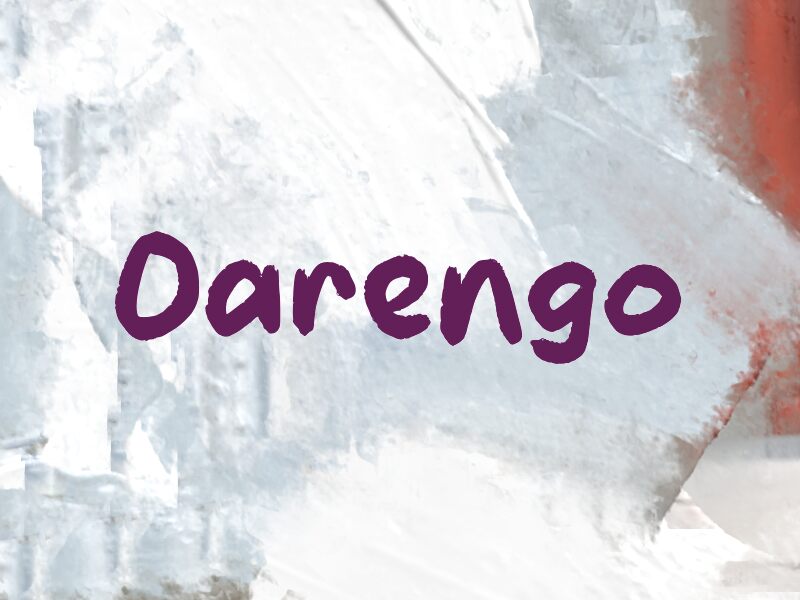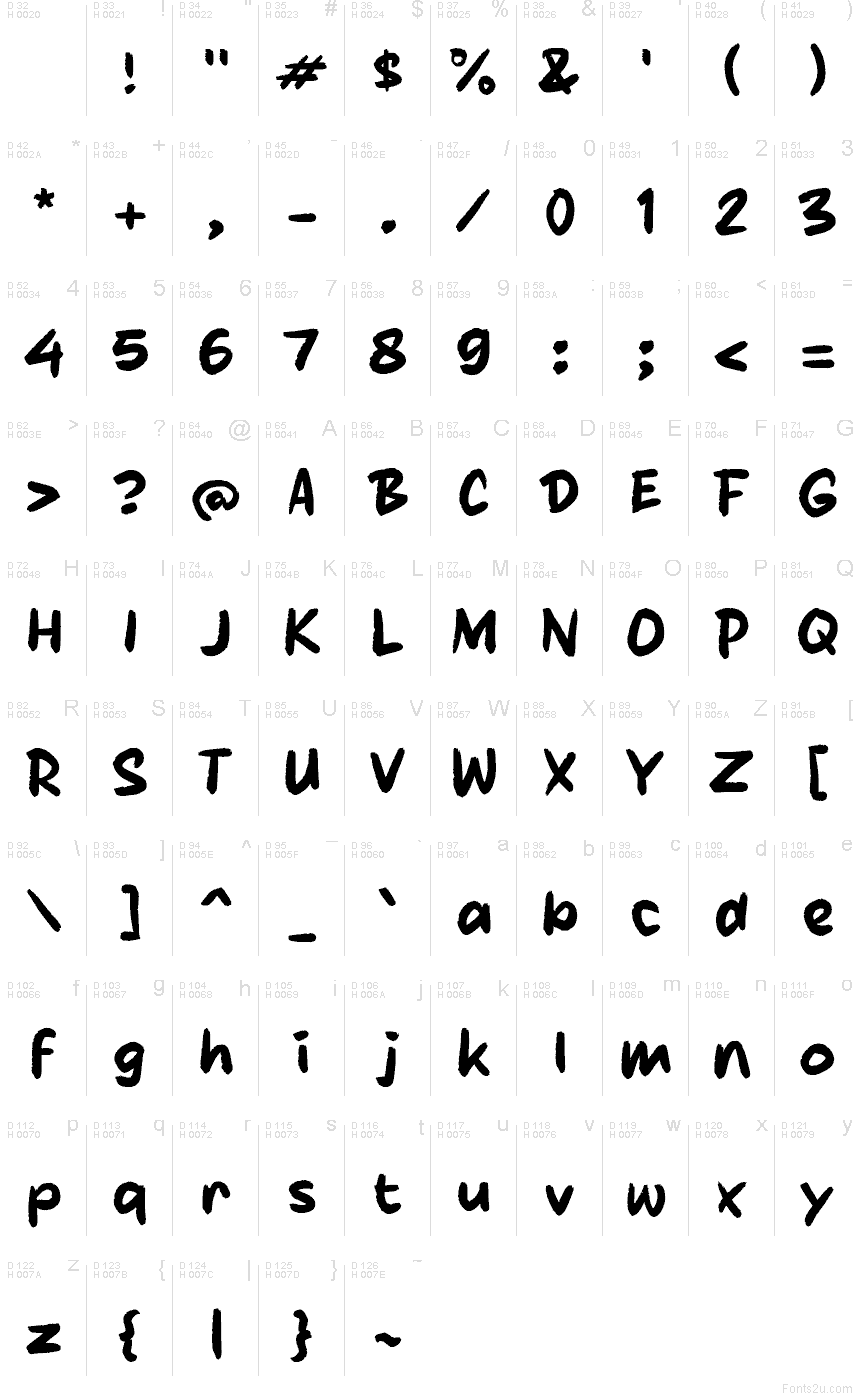
Oarengo
Oarengo font by wep is a free brush font that looks like it’s been painted in thick, inky strokes straight onto the screen. The letters are bold, rounded, and a little irregular, giving them a friendly, human wobble that still reads clearly at a glance. There’s a sense of motion in each shape, as if the brush barely left the page, which adds energy without turning into visual noise.
Using Oarengo, you can give posters, food packaging, kids’ book covers, event flyers, social media graphics, and bold logo marks a punchy, hand-done feel. This free font shines when you let it go big and roomy, where the chunky curves and dense black texture can breathe. For a balanced look, pair Oarengo with a clean geometric sans for body text to keep all that expressive brushwork grounded and readable.